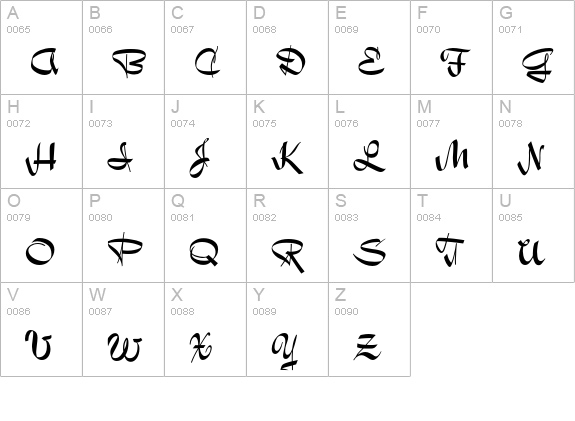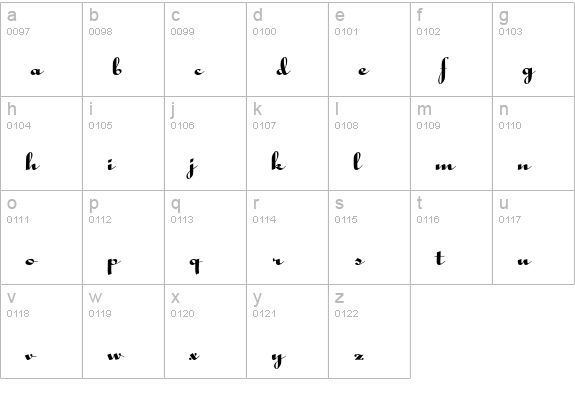
Holly-Script Font Details
Introducing Holly-Script font, a beautifully crafted typeface that exudes elegance and sophistication. With its flowing and intricate script style, Holly-Script is perfect for adding a touch of sophistication to your projects. Whether you're designing invitations, logos, or branding materials, this font is sure to make a lasting impression. The best part? Holly-Script is completely free! You can download this stunning font at FontsMarket.com and use it for both personal and commercial projects without any restrictions. Don't miss out on the opportunity to elevate your designs with this exquisite typeface. Download Holly-Script today and let your creativity shine!